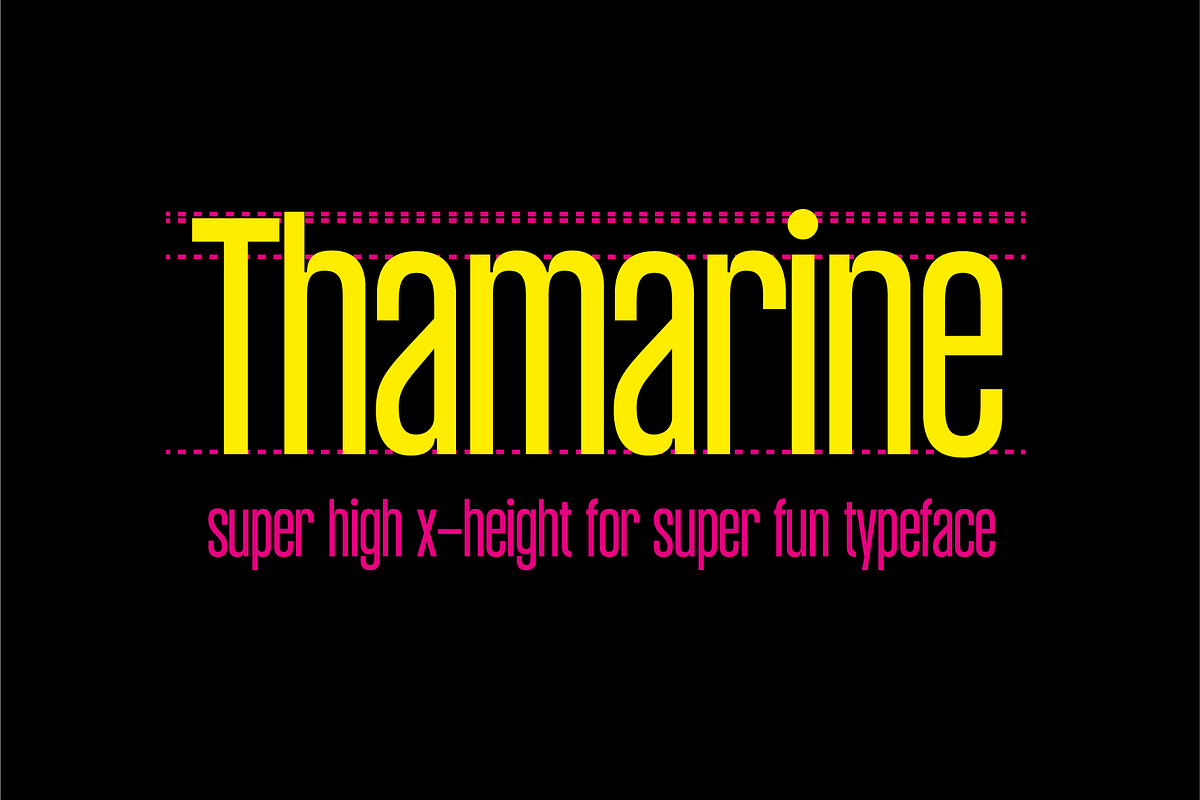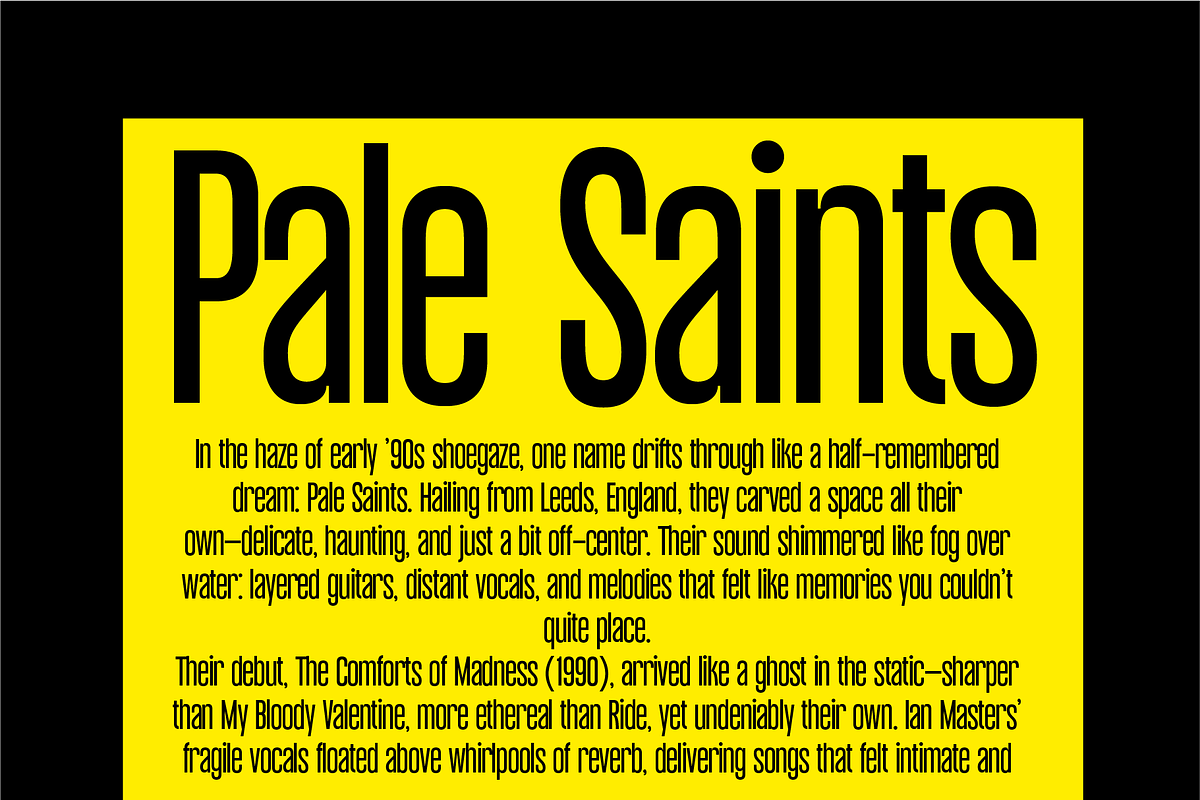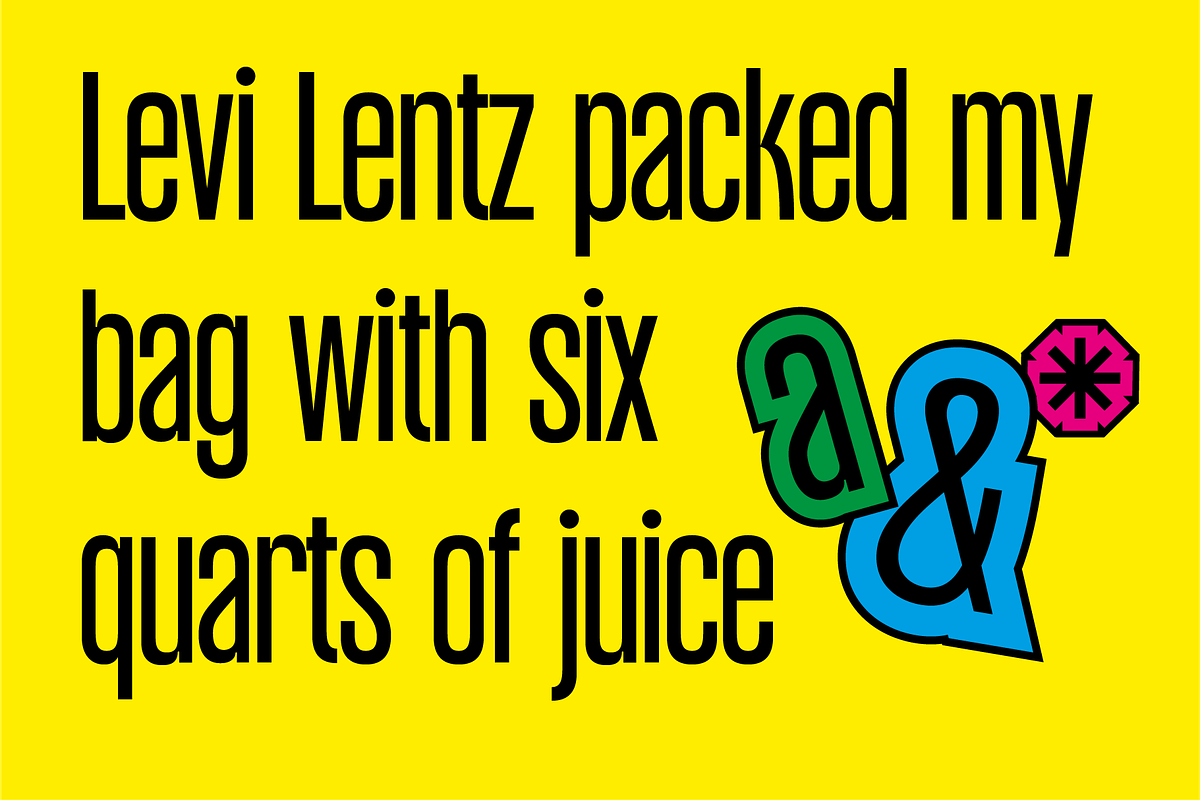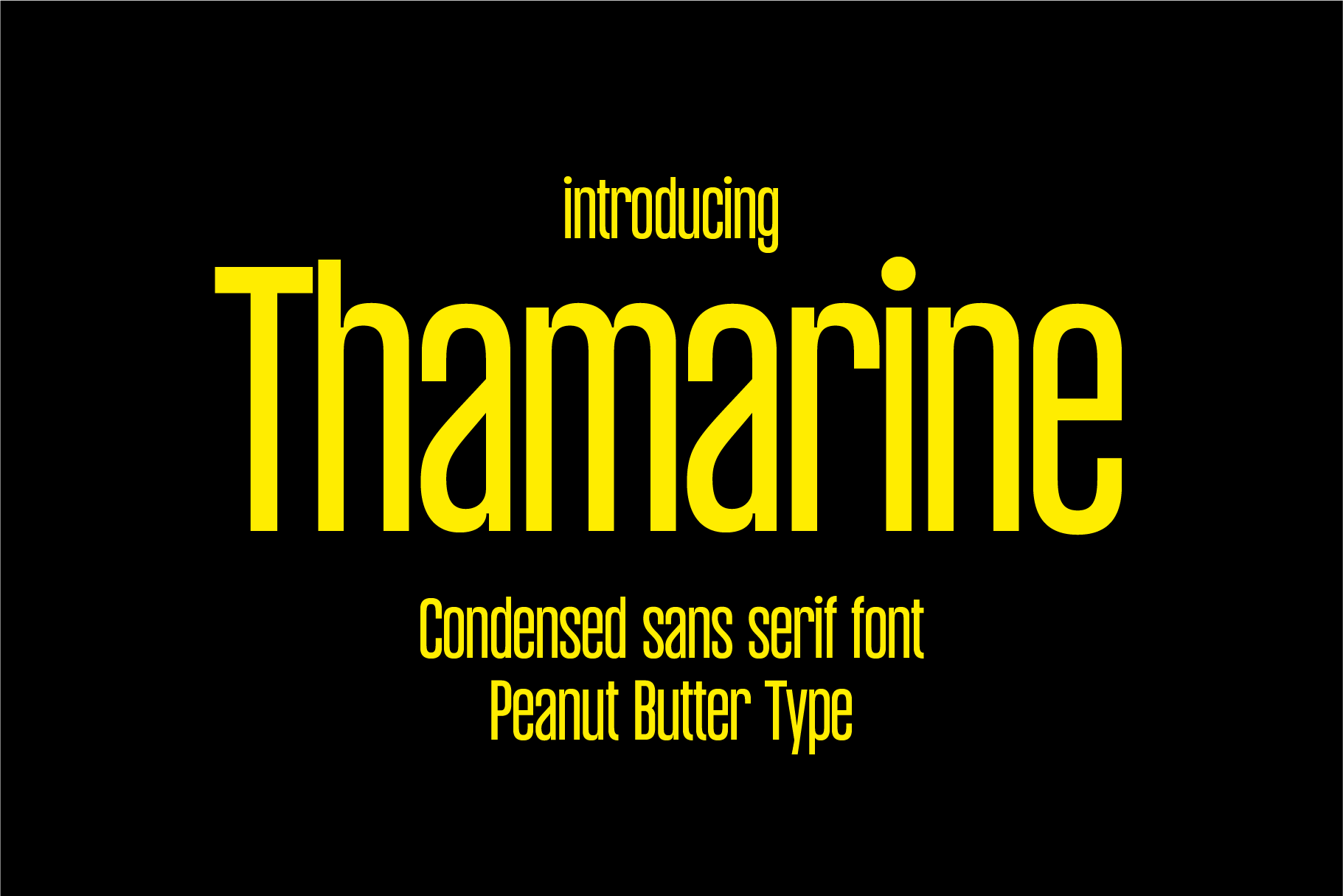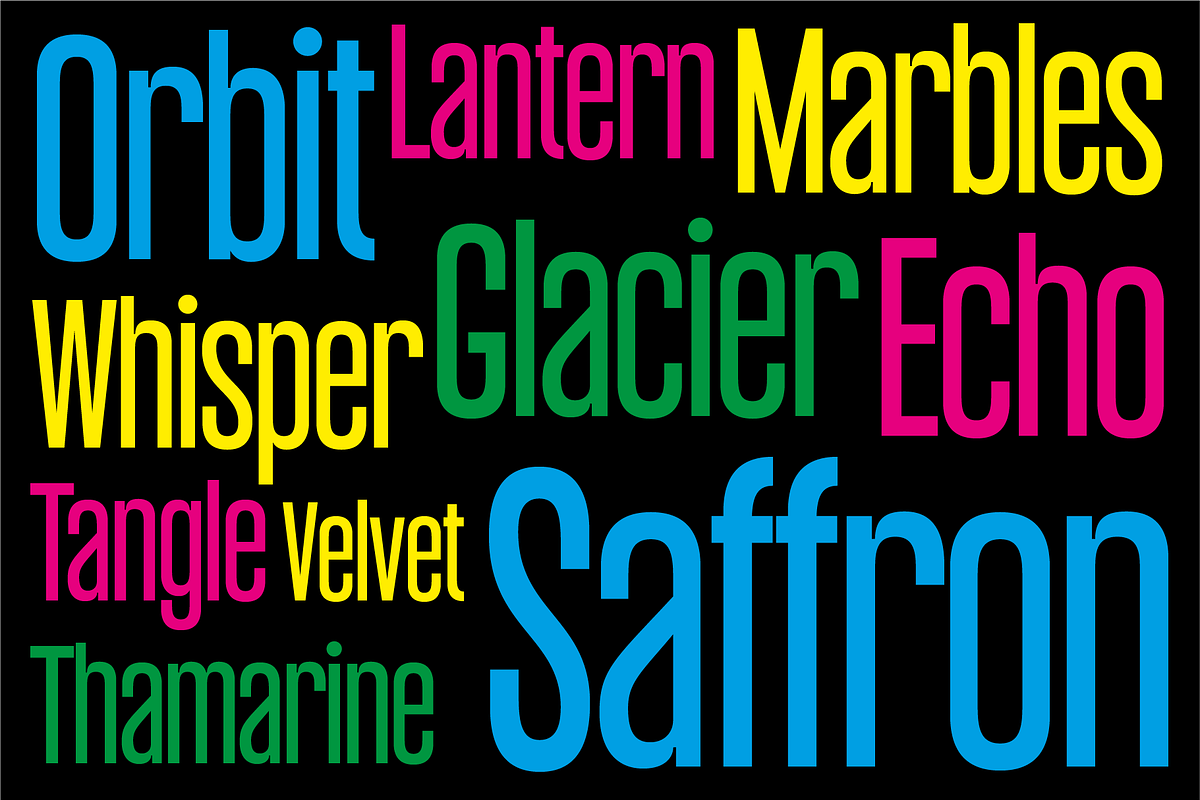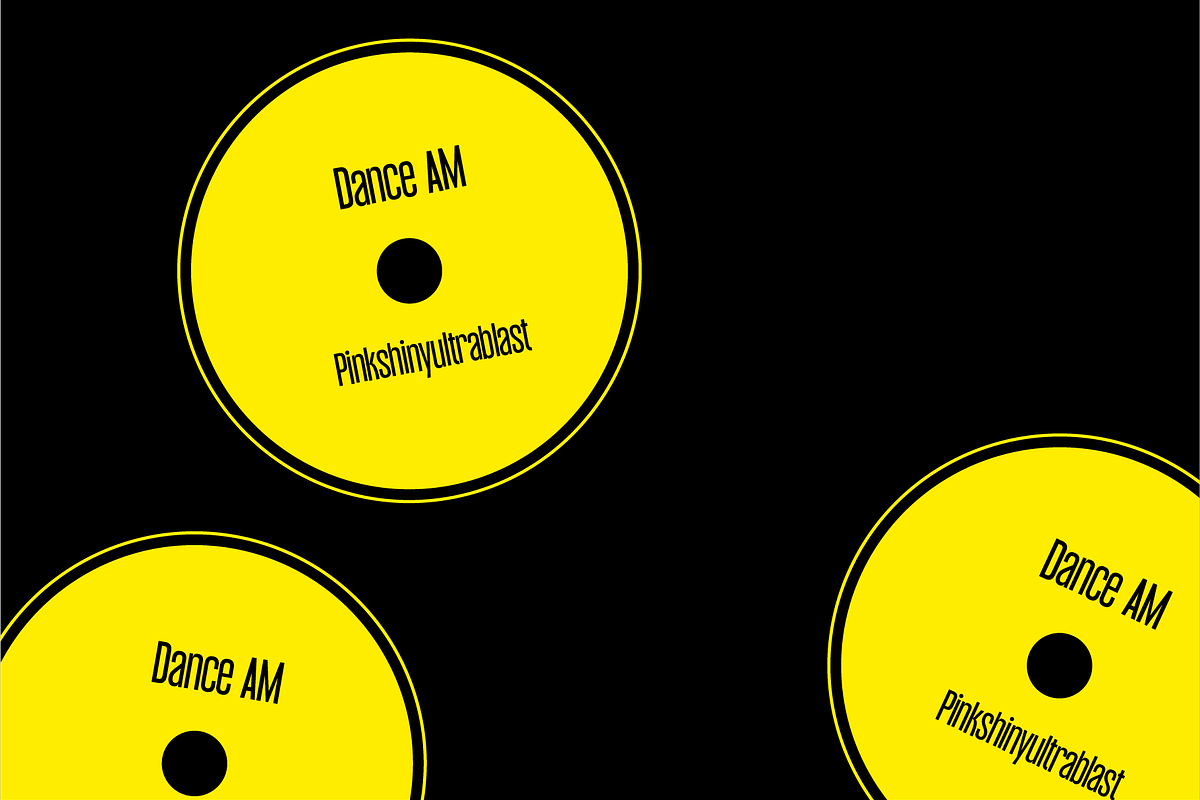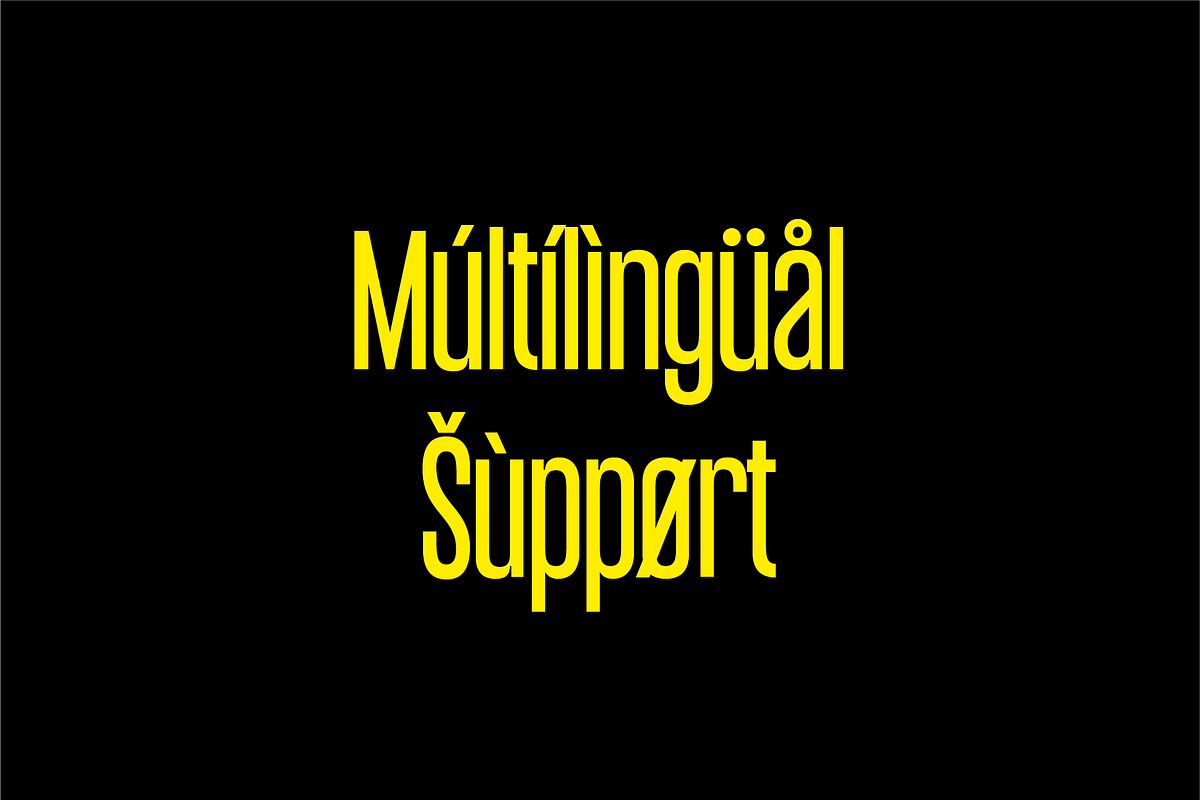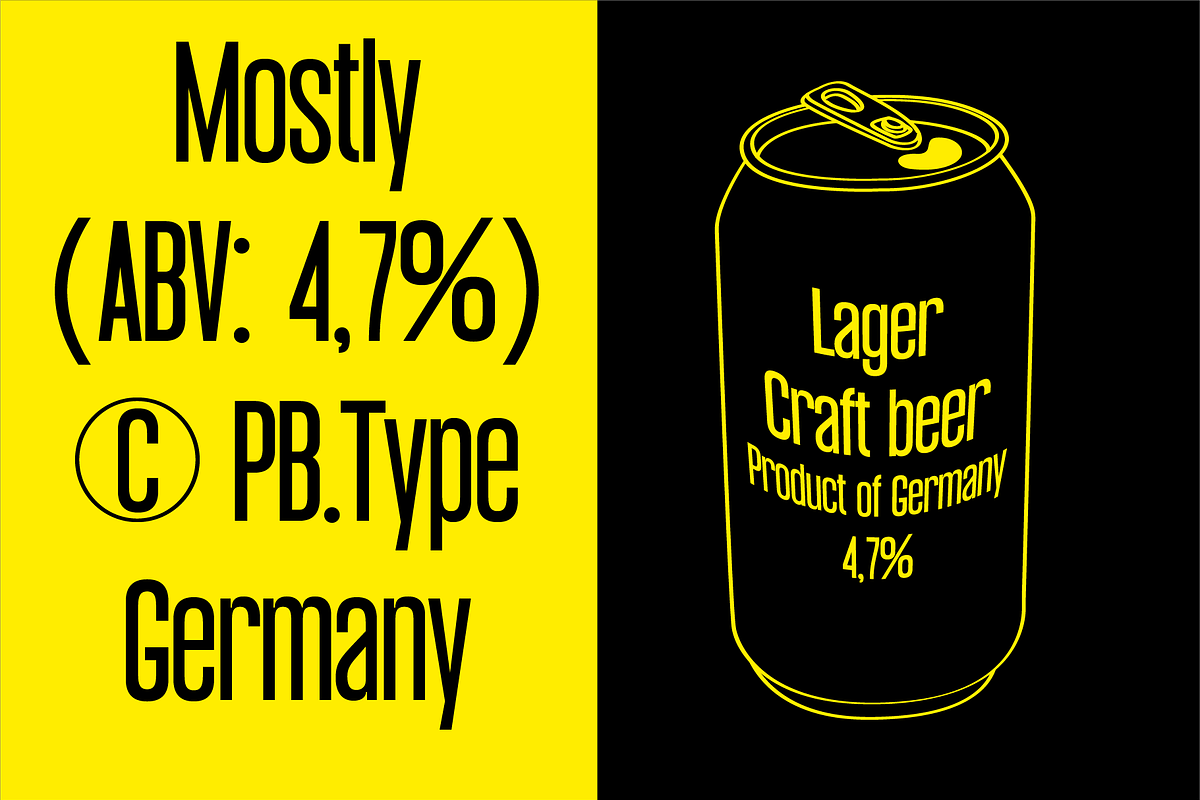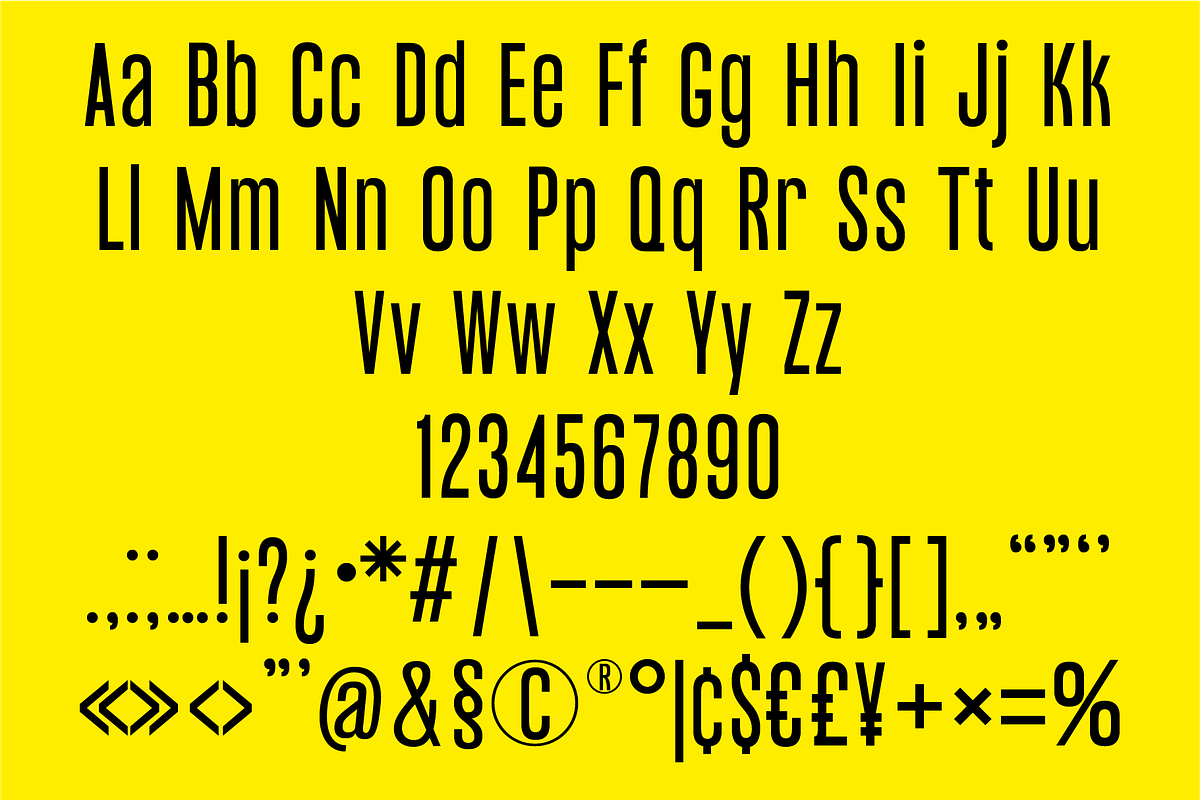
Thamarine Condensed Sans Font
Thamarine is a sleek, modern condensed font designed to make your message impossible to ignore. With its tall letterforms and minimal spacing, Thamarine delivers bold impact in limited space—perfect for headlines, posters, branding, and high-contrast editorial layouts. Its sharp edges and contemporary flair add a touch of sophistication, while its condensed nature keeps your designs clean, efficient, and stylish. Whether you're working on fashion, tech, or luxury projects, Thamarine speaks volumes with less.